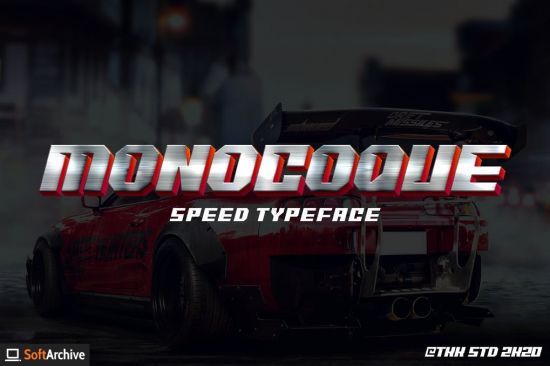
DesignOptimal - MONOCOQUE - Speed Typeface Font
DesignOptimal.com - MONOCOQUE - Speed Typeface Font
Having a blocky shape with powerful, strong sharp corner, and a cut out on the inner, will make MONOCOQUE emphasize the racing spirit inside your designs.